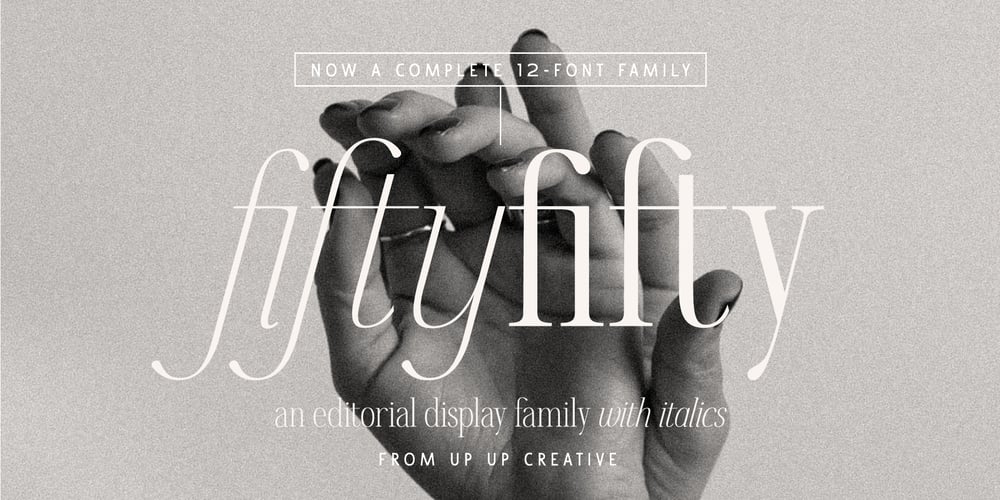
Fifty Fifty
Fifty Fifty font
Fifty Fifty Font Family was designed by Julie Green and published by Up Up Creative. Fifty Fifty contains 12 styles and family package options. NEW IN 2025: Fifty Fifty has been expanded into a 12-font family with 6 weights, each in upright and italic styles. If you have purchased Fifty Fifty before, that’s now “Fifty Fifty Regular” and the other weights are thinner and thicker than that weight.Fifty Fifty is an editorial serif font (upright and italic) with smooth curves and more than 100 ligatures. It’s gorgeous in all caps, but the lowercase letters can really hold their own. Fifty Fifty is perfect for headlines, editorial design, monograms, branding, logos, poster design, and more.Fifty Fifty includes approximately 700 glyphs and a whopping 115 standard and discretionary ligatures. Additional OpenType features include character variants, stylistic sets, and multilingual support (including multiple currency symbols).